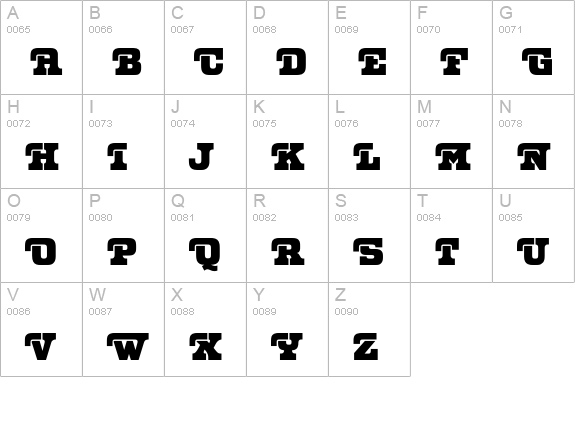
Introducing OdinEF font, a stunning display typeface that exudes elegance and sophistication. This versatile font is perfect for adding a touch of luxury to your designs, whether for branding, packaging, invitations, or any other creative project. With its bold yet refined letterforms, OdinEF is sure to make a statement and leave a lasting impression. Best of all, OdinEF is completely free to download at FontsMarket.com. This means you can add this exceptional font to your collection without any cost, making it a valuable resource for any designer or enthusiast. Don't miss out on the opportunity to elevate your designs with the timeless beauty of OdinEF font. Download it today and let your creativity shine!